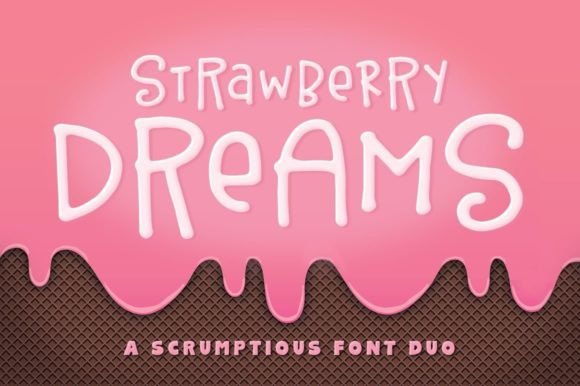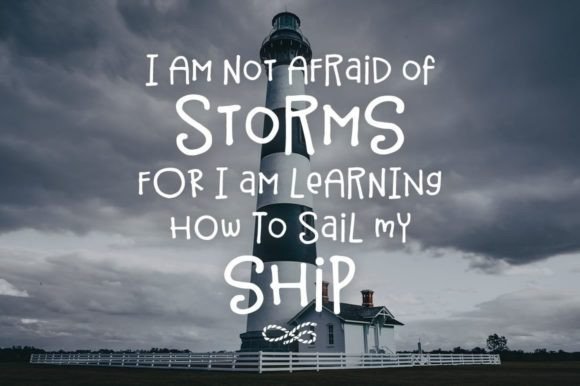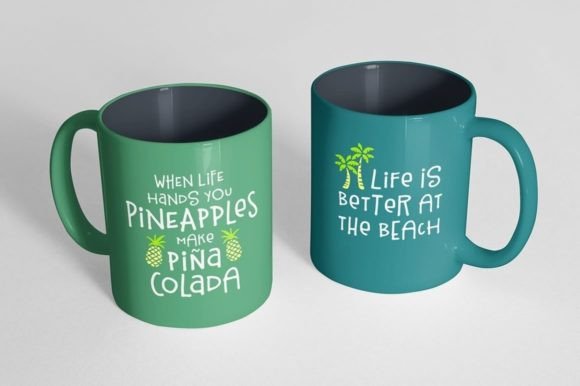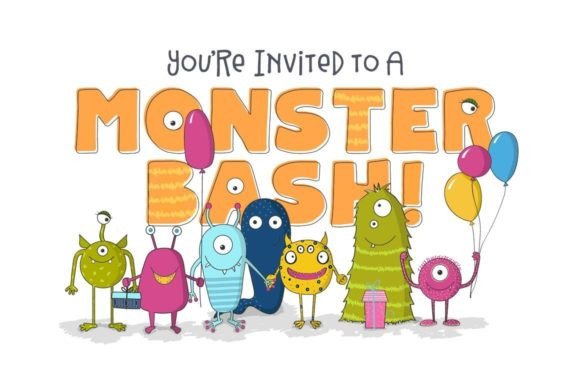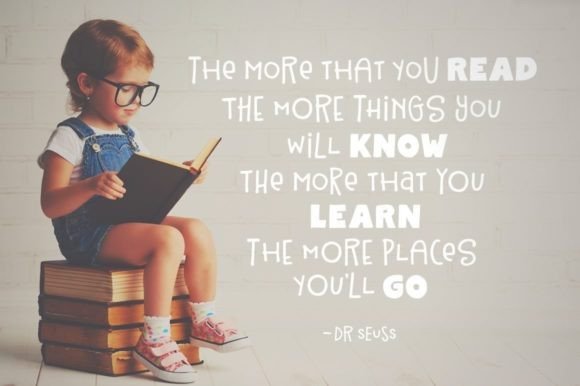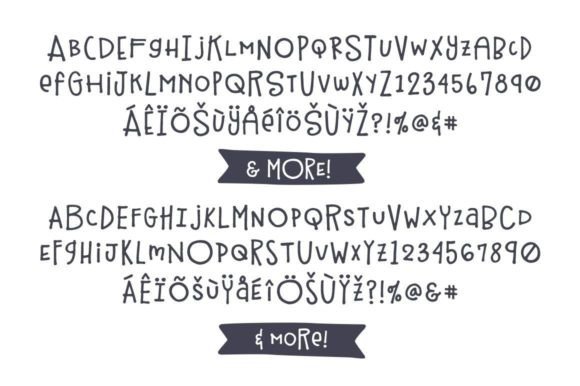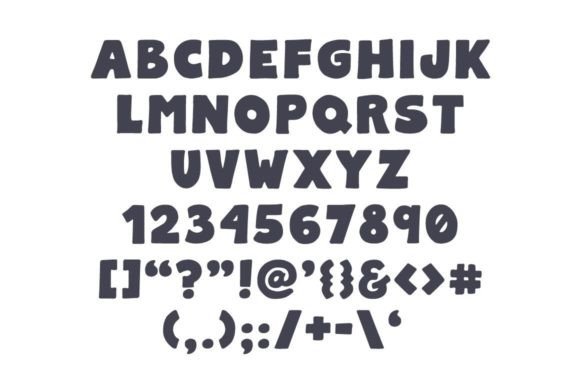
Strawberry Dreams Font
About Strawberry Dreams Font
“Strawberry Dreams” is a charming font duo that invites you to indulge in the nostalgia of simpler times. This sweet pairing is not just about letters; it’s about creating a delightful visual experience. With the addition of the alternates font, “Strawberry Dreams” offers four variations of each letter, providing you with a plethora of options to choose from and giving your designs a unique and personalized touch.
The versatility of “Strawberry Dreams” lies in its ability to evoke a sense of sweetness and whimsy, making it perfect for a variety of creative projects. Whether you’re working on invitations, branding, posters, or any design that could benefit from a touch of charm, this font duo is ready to enhance your work.
The alternates font expands your creative possibilities, allowing you to experiment with different letter variations and create custom looks that align with your design vision. This feature ensures that your typographic compositions are not only visually appealing but also uniquely tailored to your specific style and preferences.
For added emphasis and style, the complementary block font serves as a perfect companion. It adds a distinct visual element to your designs, creating a harmonious balance between the sweet and playful nature of “Strawberry Dreams” and the boldness of the block font.
In summary, “Strawberry Dreams” is not just a font duo; it’s a creative toolkit that transports you to a whimsical world of sweetness and simplicity. Whether you’re looking to add a touch of nostalgia or create a design that stands out with personalized letter variations, “Strawberry Dreams” is the perfect choice. Feast your eyes on this delightful font duo and let it be the key ingredient in making your projects visually enchanting and uniquely yours.